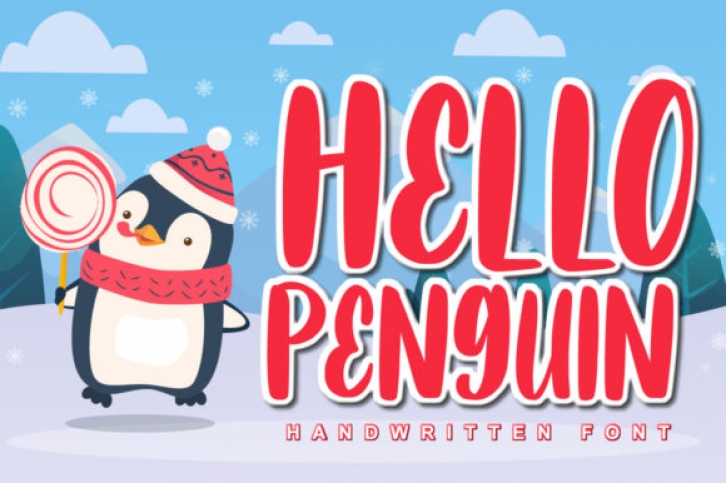
Hello Penguin is a cute and quirky display font. It will add an incredibly fun and trendy touch to your designs. This font is perfect for children themed designs, especially when combined with bright colors.